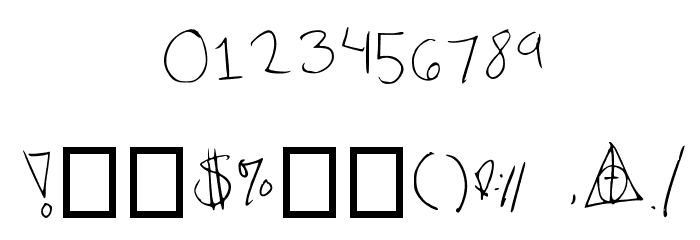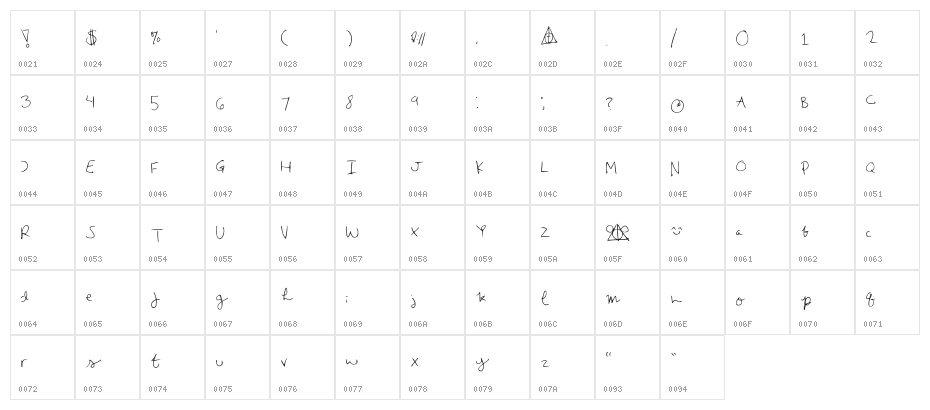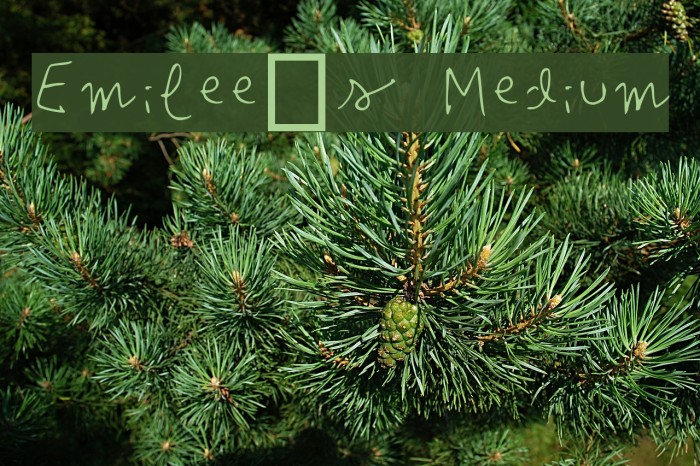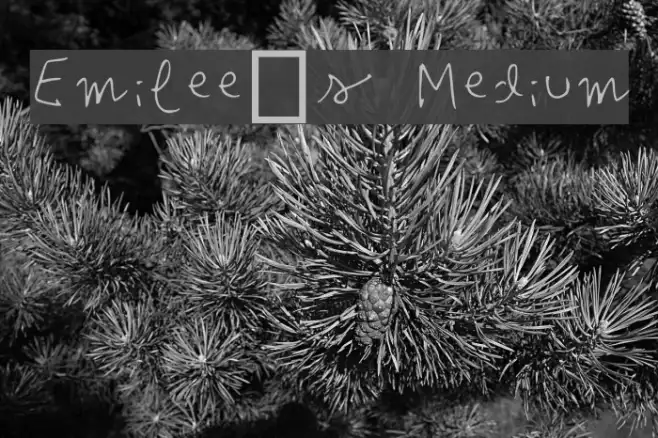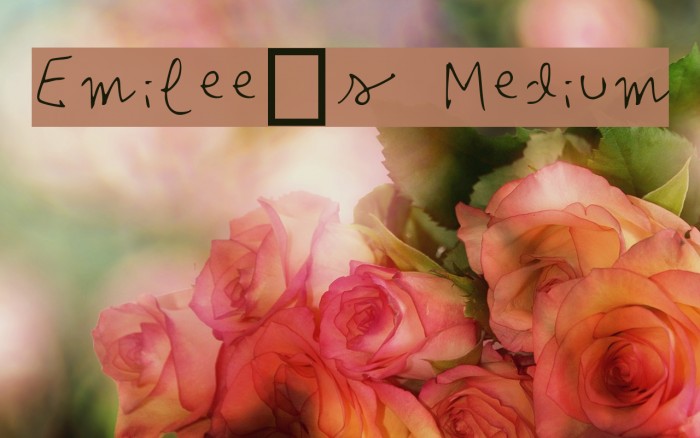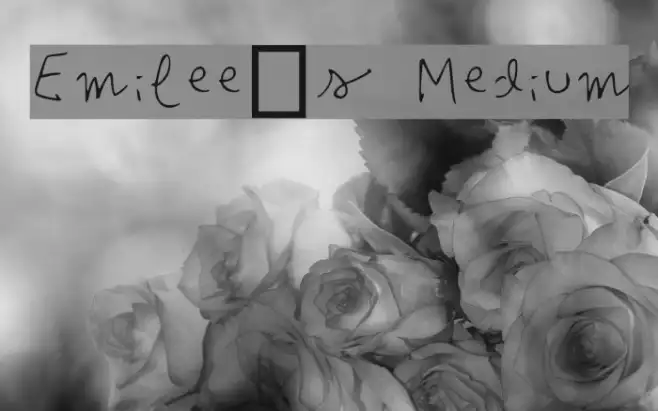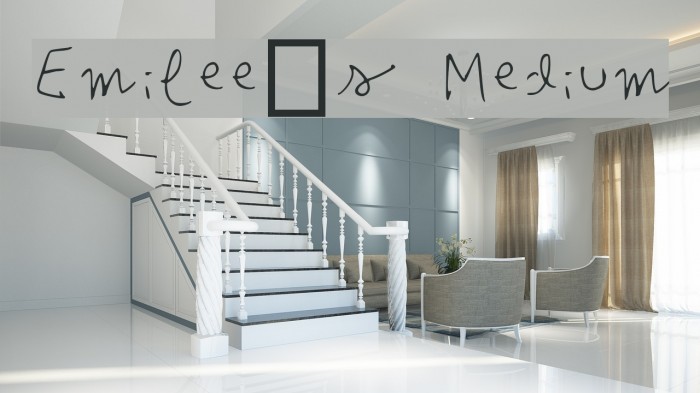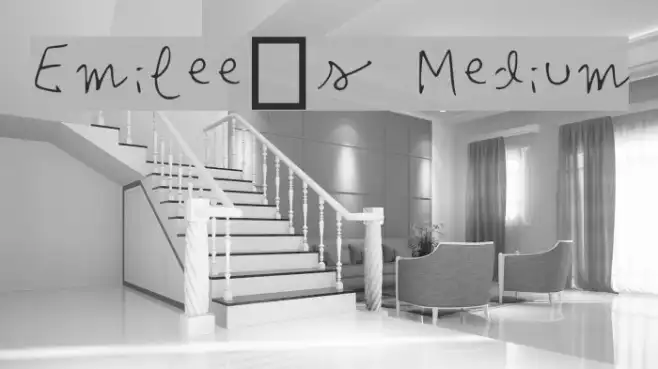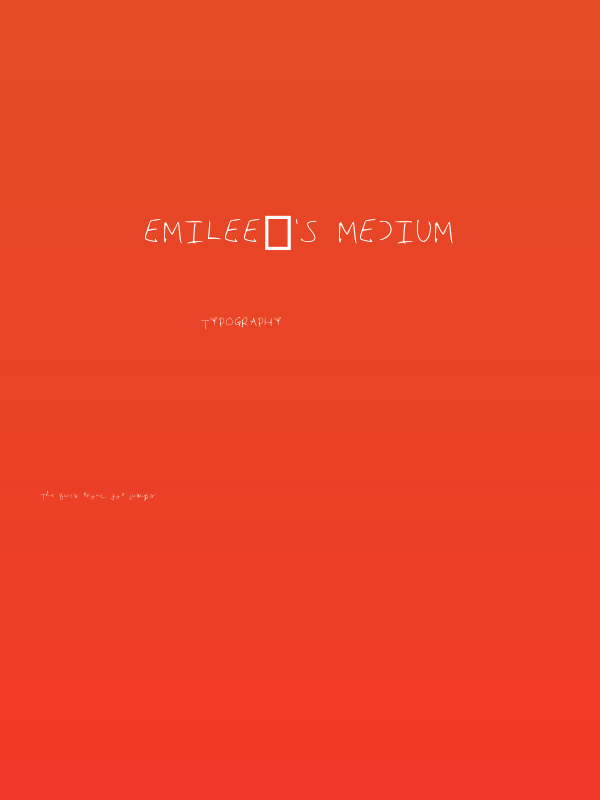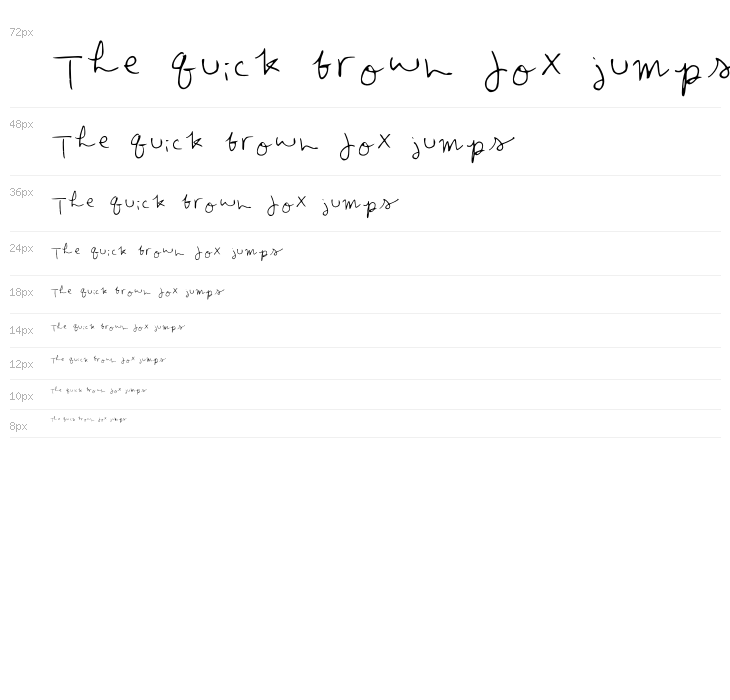
Emilee's Medium Font
Emilee's Medium Description
This font features a playful and casual handwritten style, characterized by its irregular strokes and informal appearance. The uppercase letters exhibit a slight slant and varying stroke widths, giving them a dynamic and lively feel. The lowercase letters maintain a consistent flow, with some characters extending below the baseline, adding to the font's whimsical nature. The numerals are straightforward, matching the overall informal aesthetic. Special characters are creatively designed, enhancing the font's unique personality. This font is ideal for projects that require a personal touch or a relaxed, approachable vibe.
Overall StyleCasual, Playful
Use CaseHeadlines, Informal text, Creative projects
Proposed ProjectsGreeting cards, personal blogs, children's books, casual invitations, and creative branding.